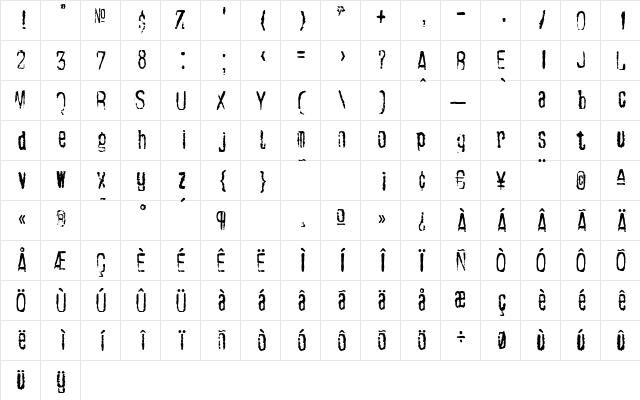
CablegramZagreb Regular
Design Context for CablegramZagreb Typeface
CablegramZagreb is a composed and adaptable typeface that performs quietly and consistently across a wide range of design contexts.